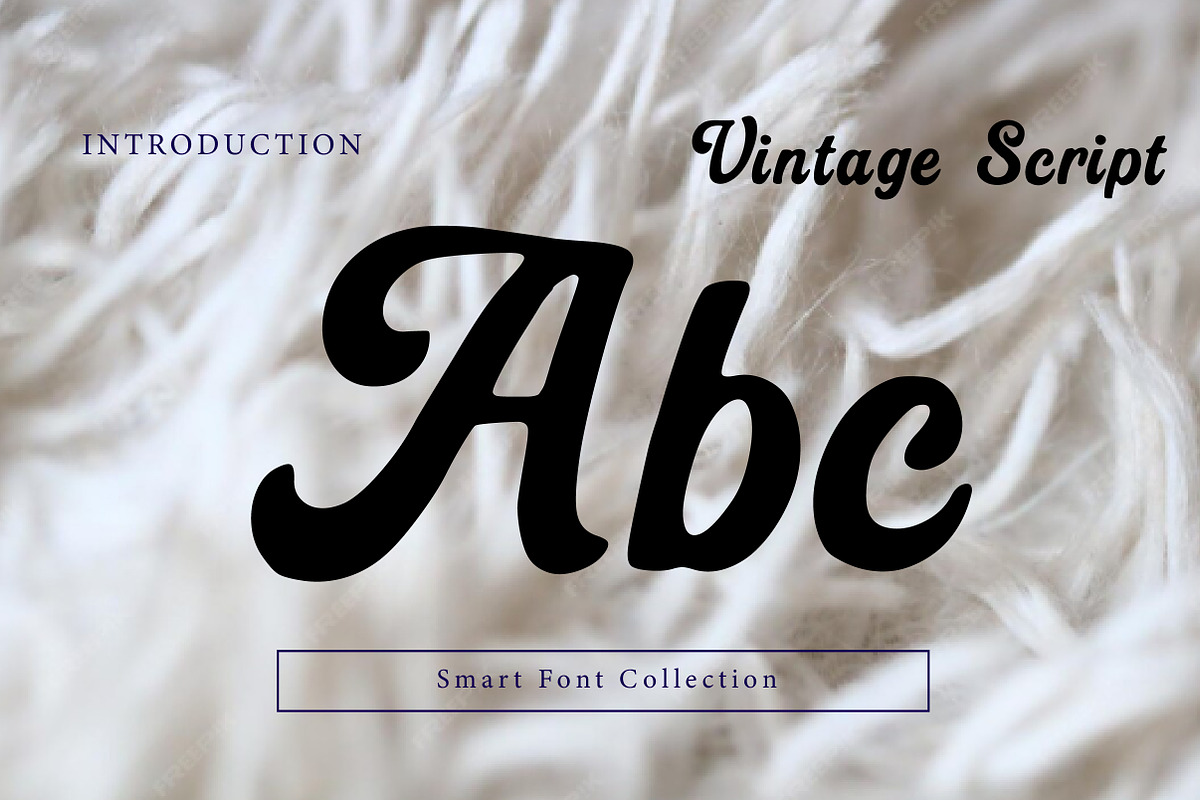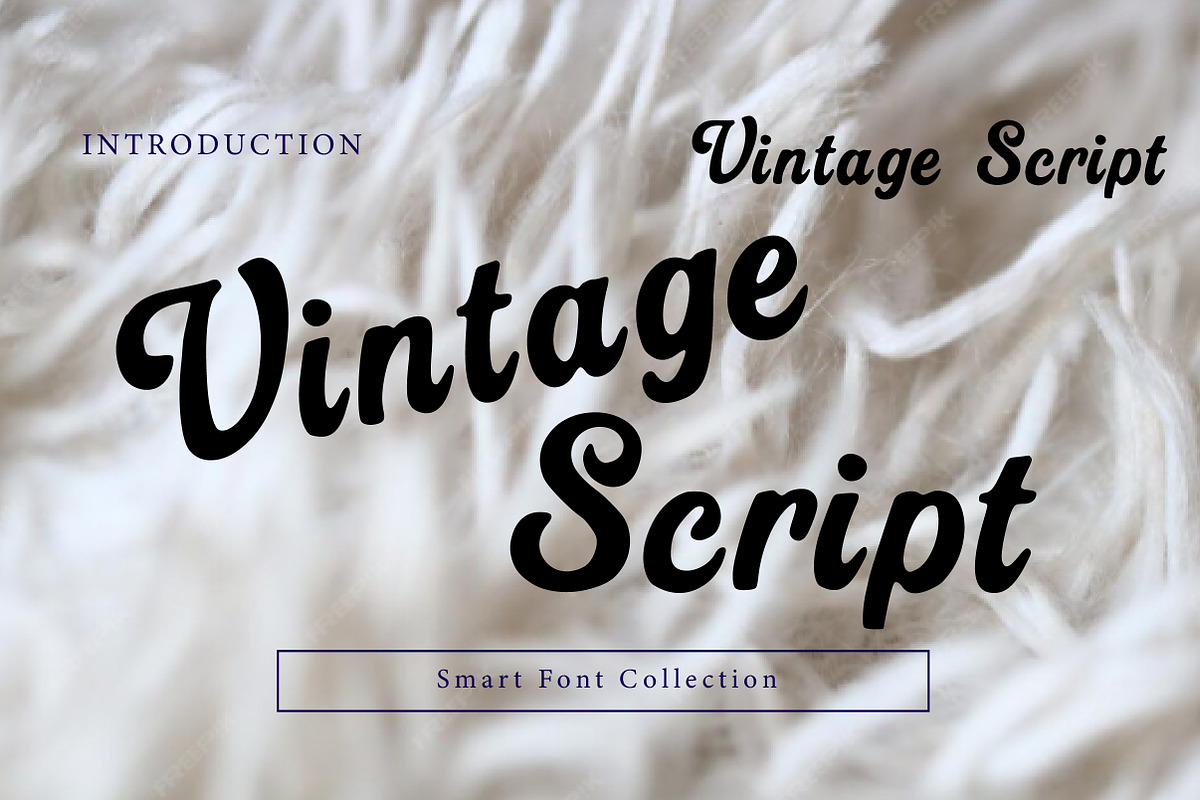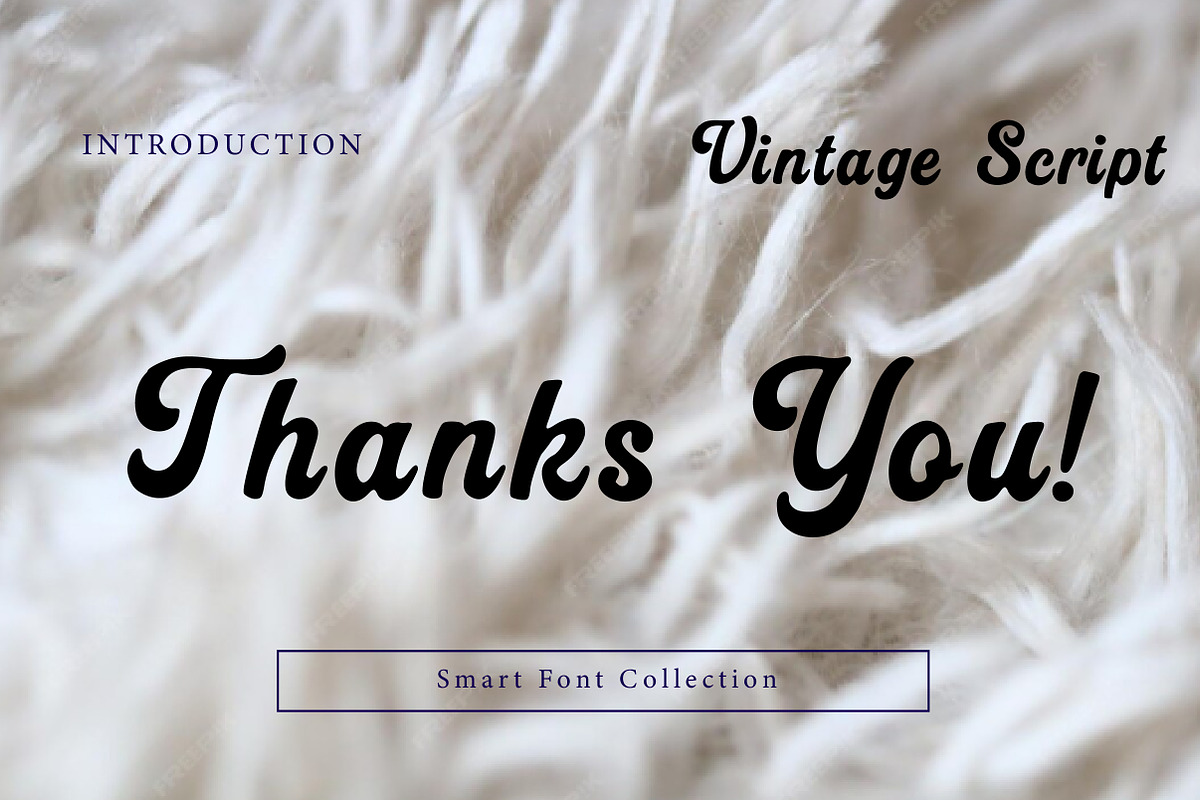
Vintage script
Vintage Script is a smooth, retro-inspired handwritten script font with a bold, friendly flow and classic lettering charm. Its rounded strokes and stylish connections create an authentic vintage feel that’s perfect for logos, packaging, product labels, café branding, posters, quotes, social media graphics, and nostalgic headlines. Use it for retro branding, handmade goods, apparel designs, wedding or party invitations, and any project that needs timeless script typography with a warm, old-school vibe.